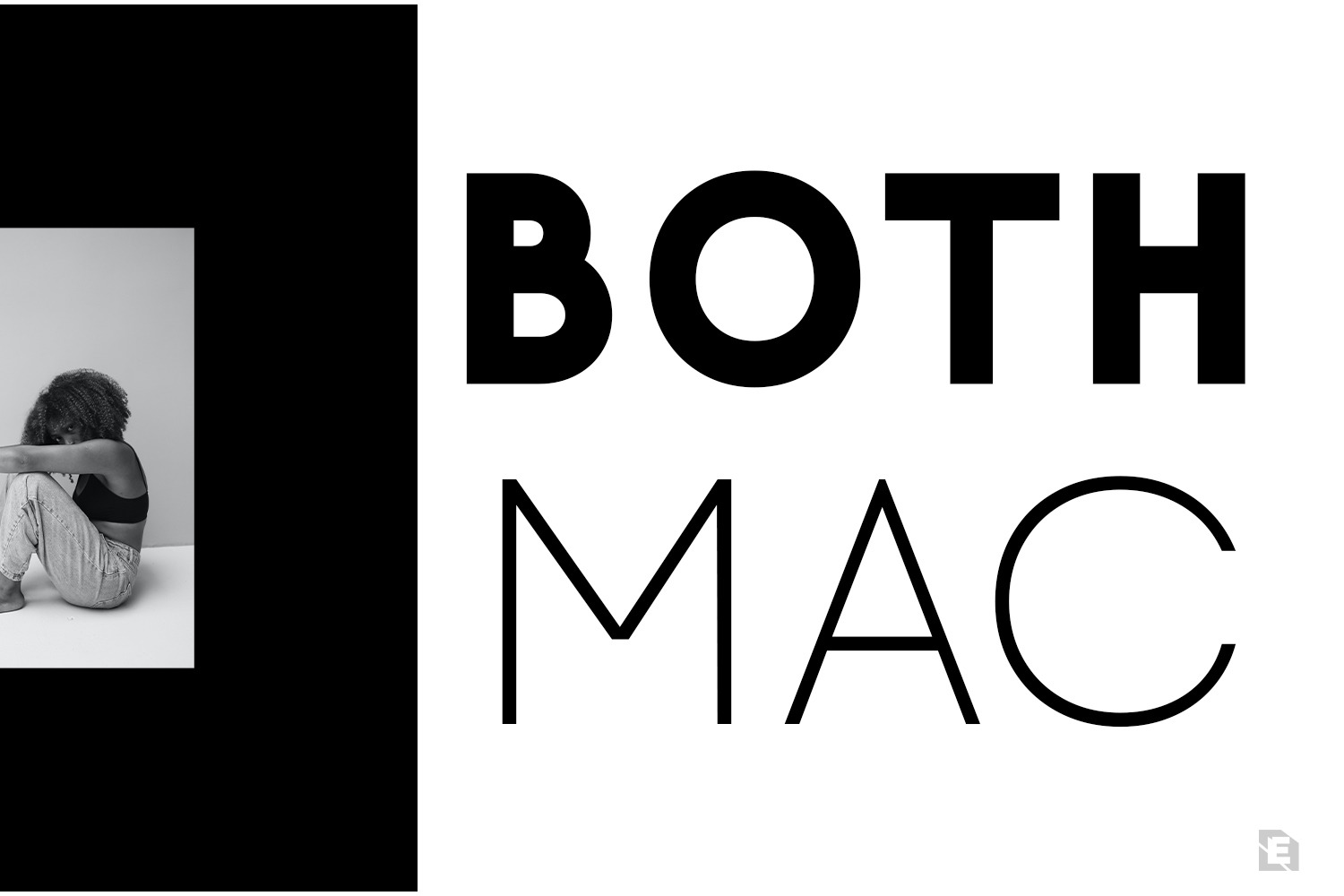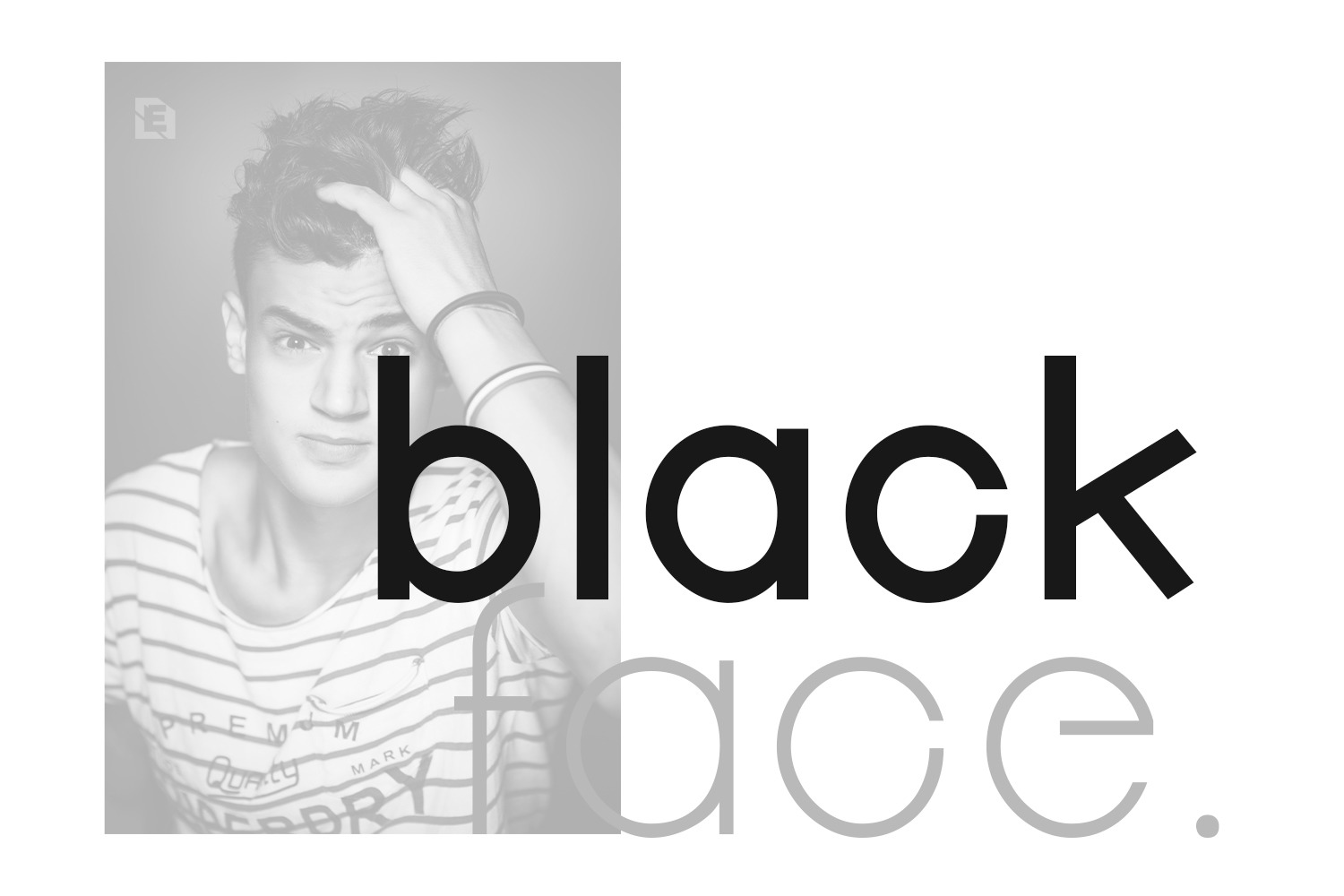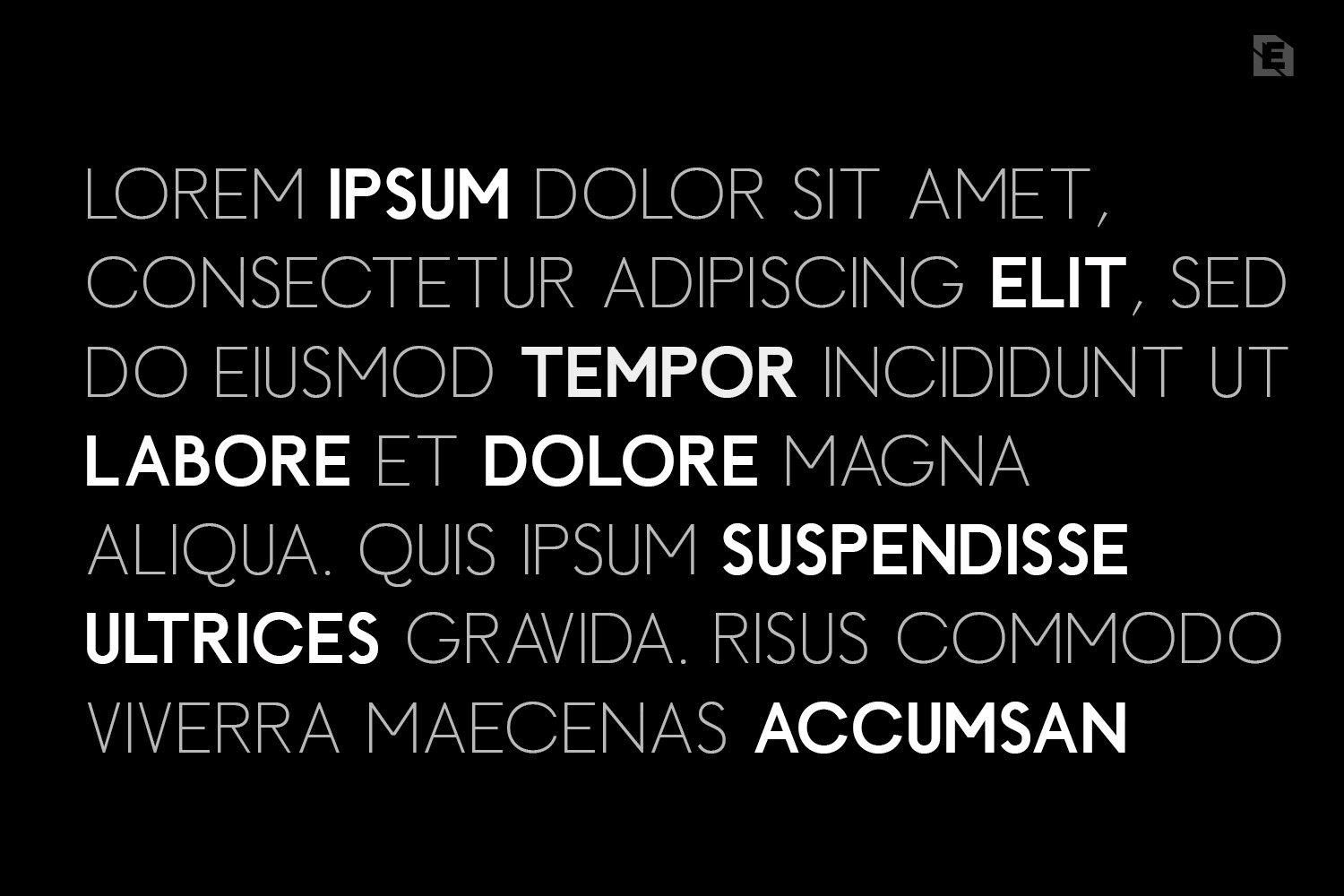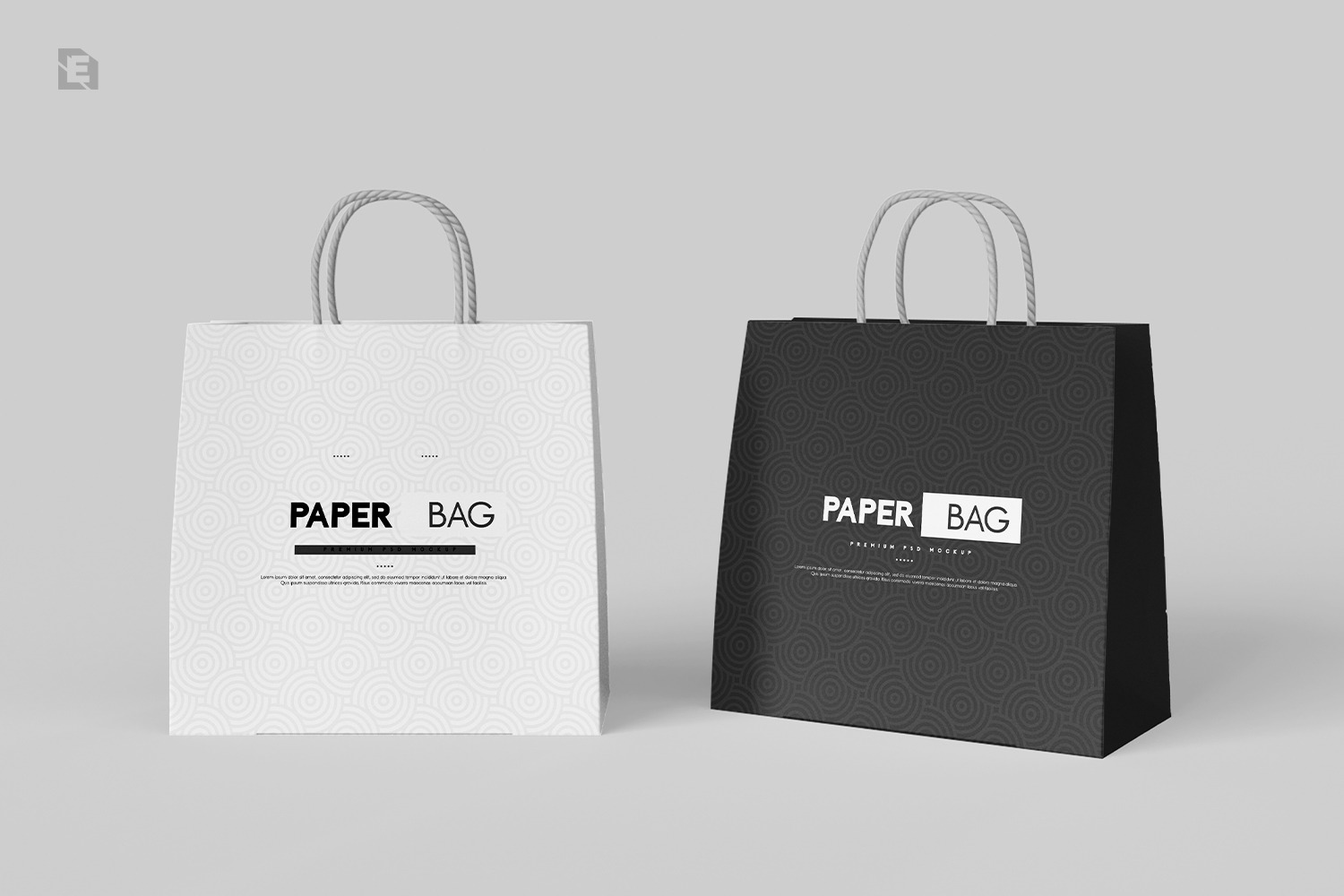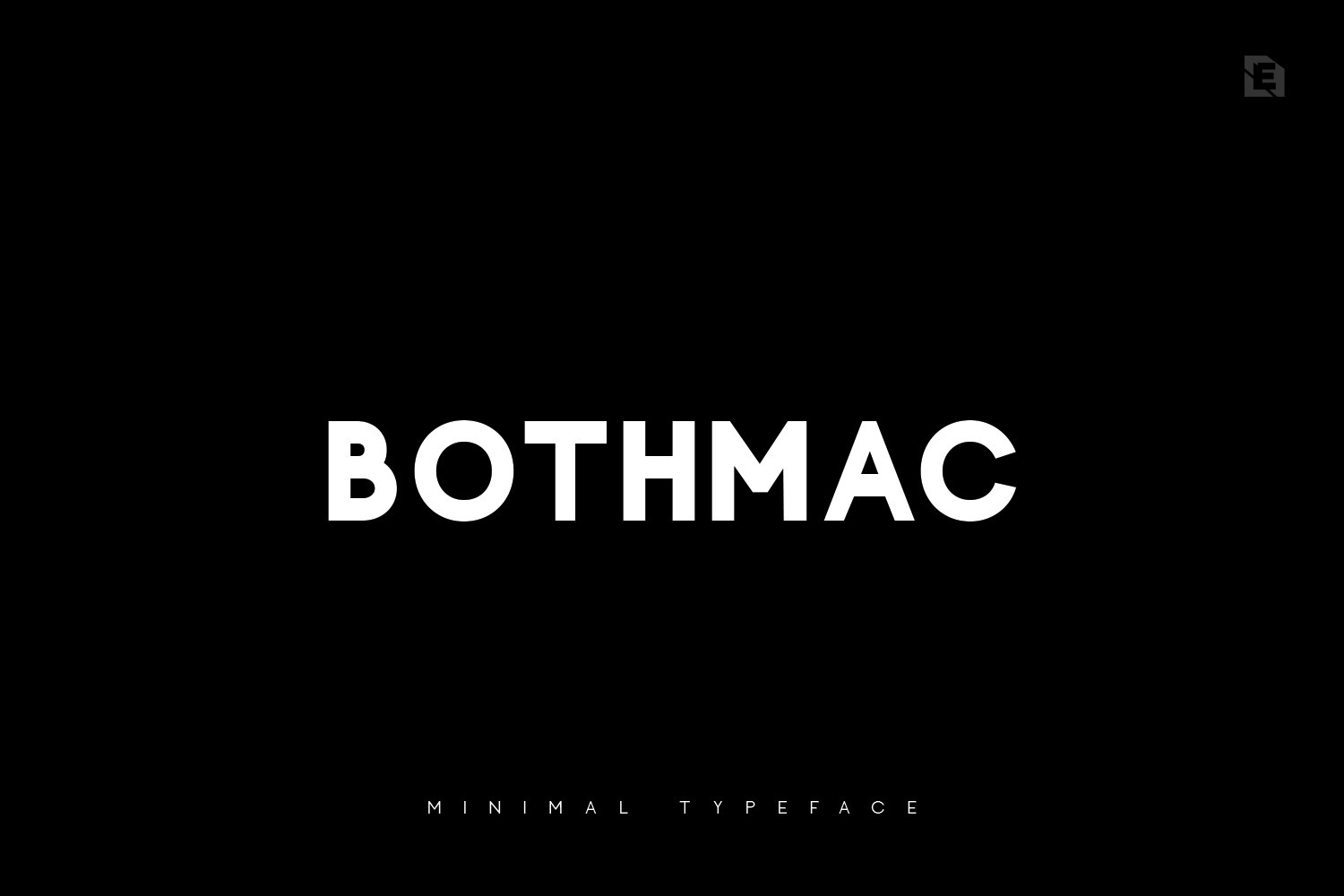
Bothmac Font
Bhomathic is a clean and minimalist Display font, It’s simplicity gives it flexibility for a broad range of uses.
Perfect for people looking for clean and minimalistic to designs. The typeface come with an uppercase, lowercase alphabet with numbers and symbols.
It includes lots of graphic design elements. Bhomathic is perfect match for editorial design even for experimental design. Looks great at the small details or the bigger size.
It contains all capital letters, numerals and symbols. This font is also perfect suited for a variety of display purposes, including logotypes, badges and labels, headlines and banners, prints and much more. Much legible and understandable.
Features
Uppercase
lowercase
punctuations
numbers